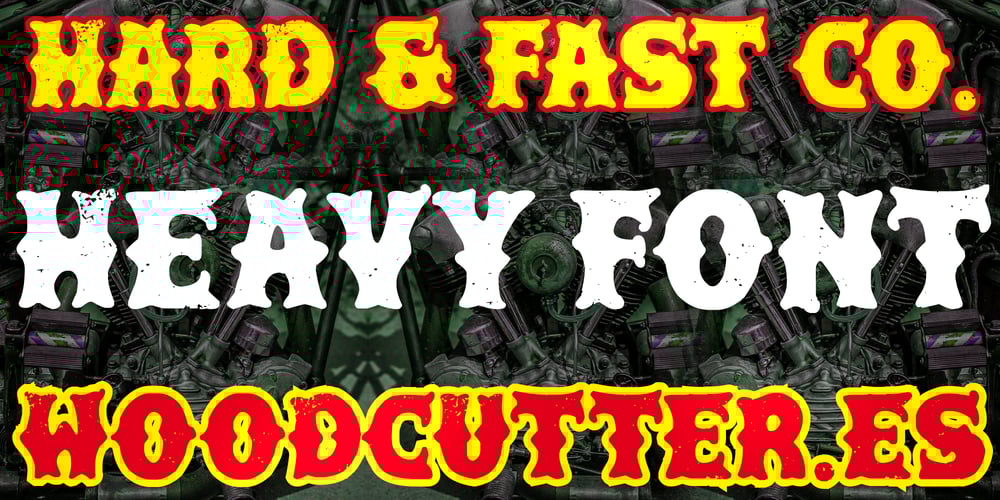
Hard & Fast Co.
Hard & Fast Co. Font Family was designed by Jordi Manero and published by Woodcutter. Hard & Fast Co. contains 1 styles and family package options. “Hard & Fast Co.” is a typeface with a tough, rugged look, inspired by biker culture and featuring a western touch. Its letters have hard and retro traits, evoking the strength and rebellion of open roads and modern cowboys. Perfect for projects aiming to convey a sense of toughness and authenticity, this font is ideal for logos, posters, and merchandise that need a bold and masculine touch. “Hard & Fast Co.” combines the free spirit of the biker world with the classic western aesthetic for a truly striking design.